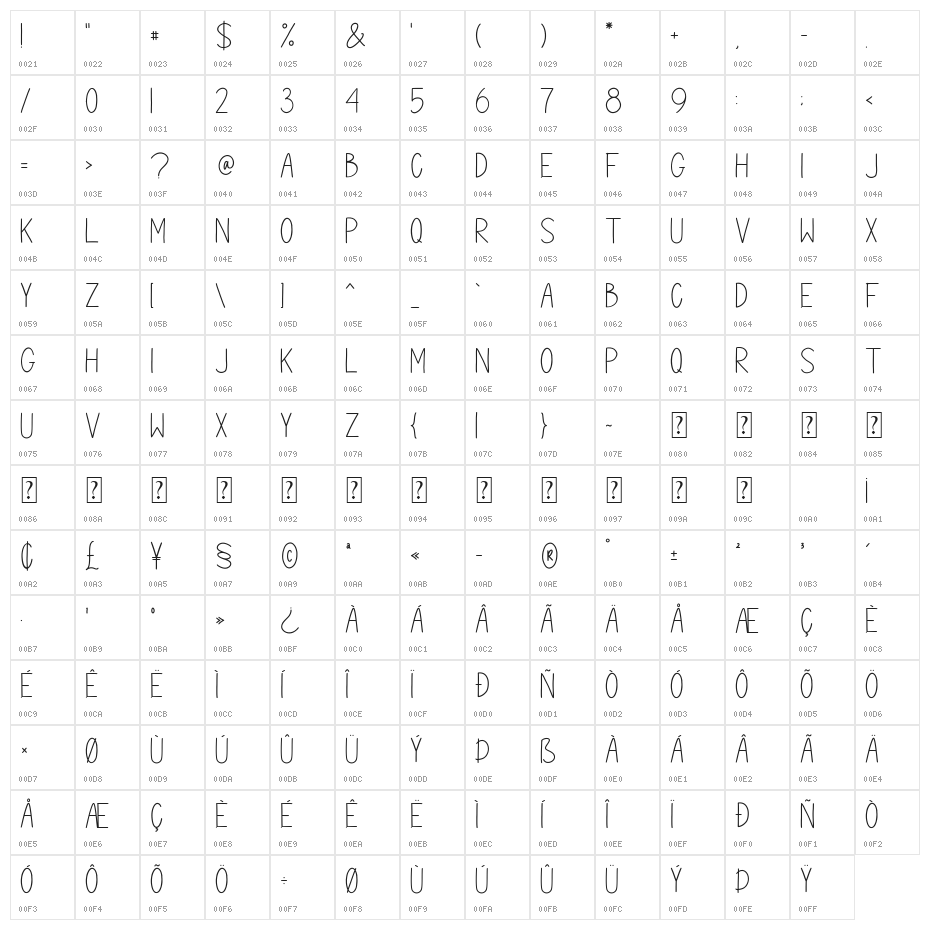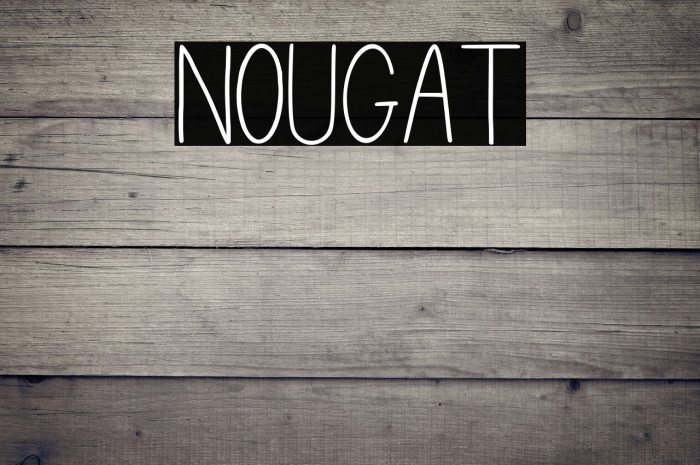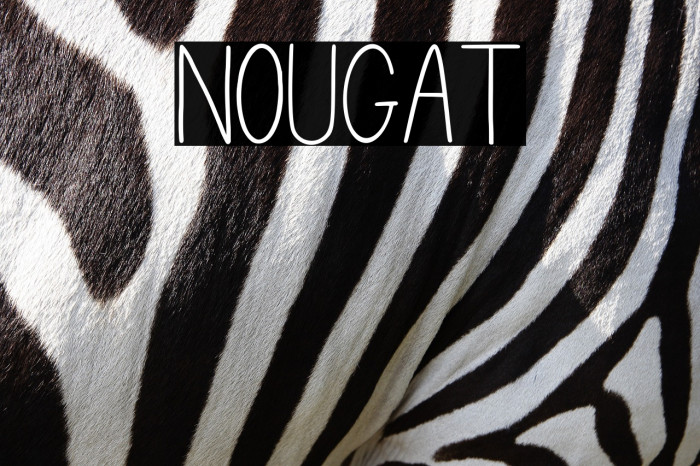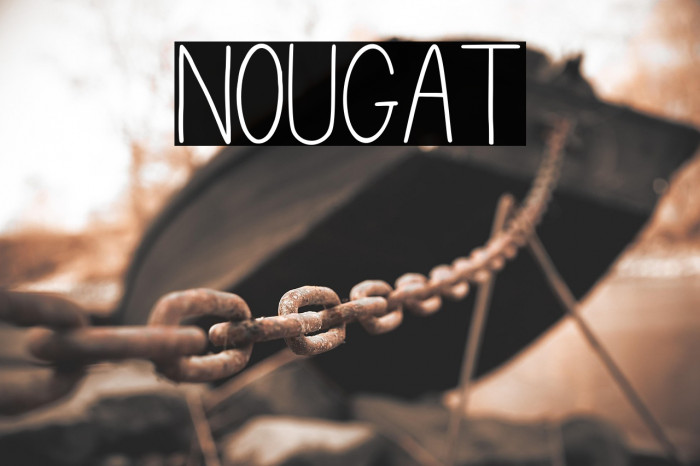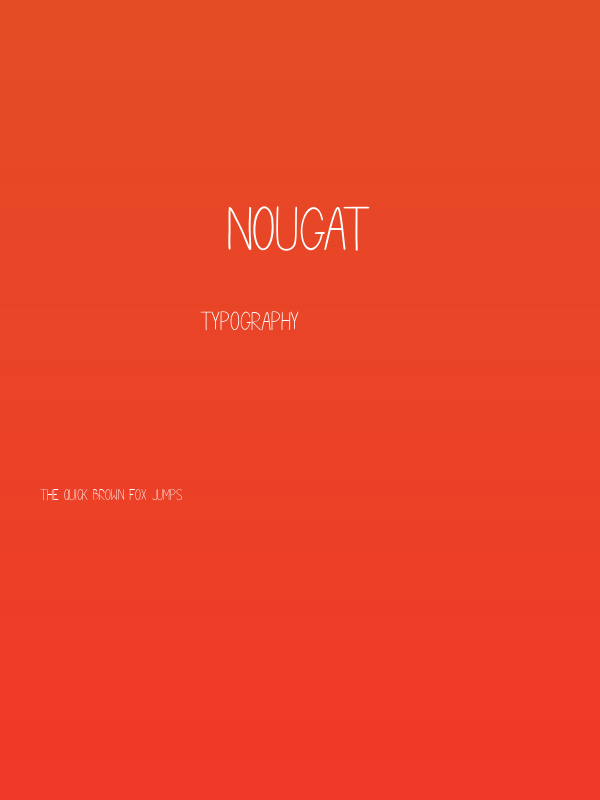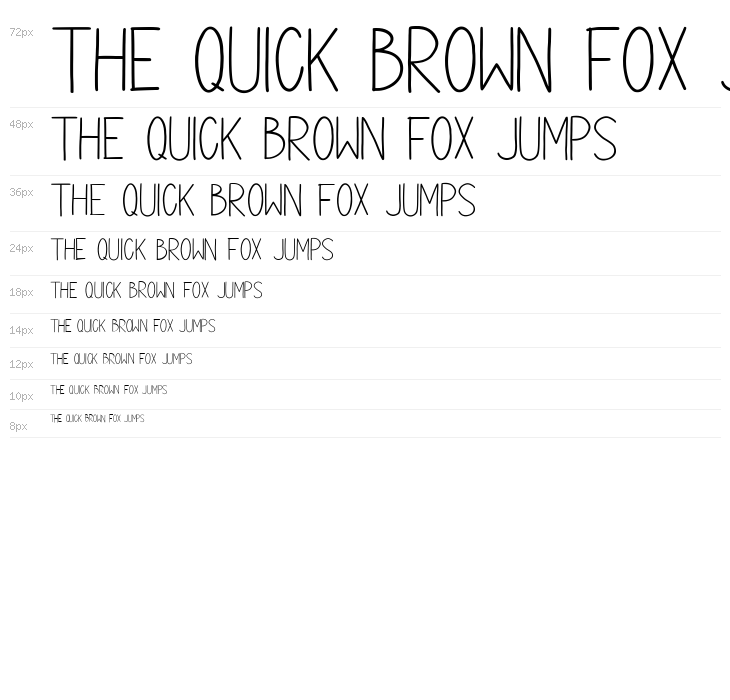
Nougat Font
Nougat Description
This font features a playful and casual handwritten style, characterized by its tall, narrow letters and slightly irregular strokes. The uppercase and lowercase letters maintain a consistent height, giving it a uniform appearance. The numerals and special characters follow the same design principles, ensuring cohesion throughout. The strokes are thin, with a low contrast between thick and thin parts, contributing to its informal and friendly look. This font is ideal for projects that require a personal touch, such as greeting cards, invitations, or casual branding.
| Use Case | Headlines, Informal text, Personal projects |
| Proposed Projects | Ideal for greeting cards, invitations, casual branding, and personal projects. |